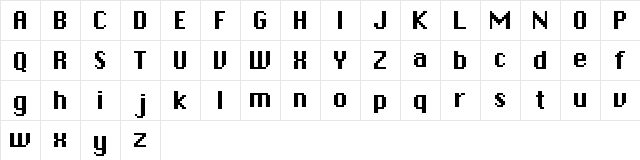
Chicpix Regular
Design Context for Chicpix Typeface
Chicpix is a composed and adaptable typeface that performs quietly and consistently across a wide range of design contexts.